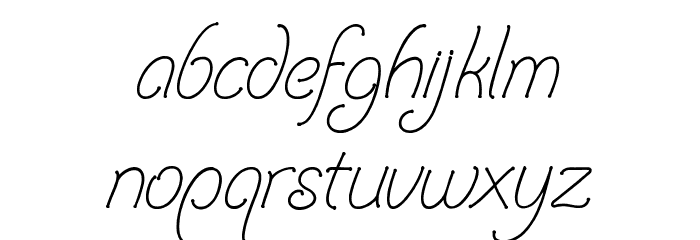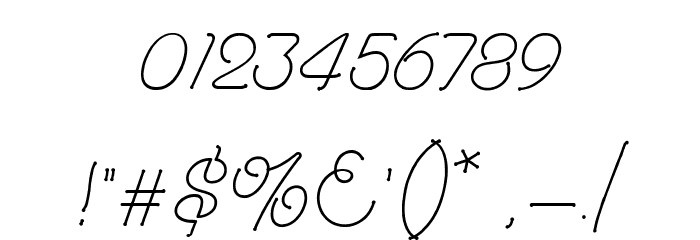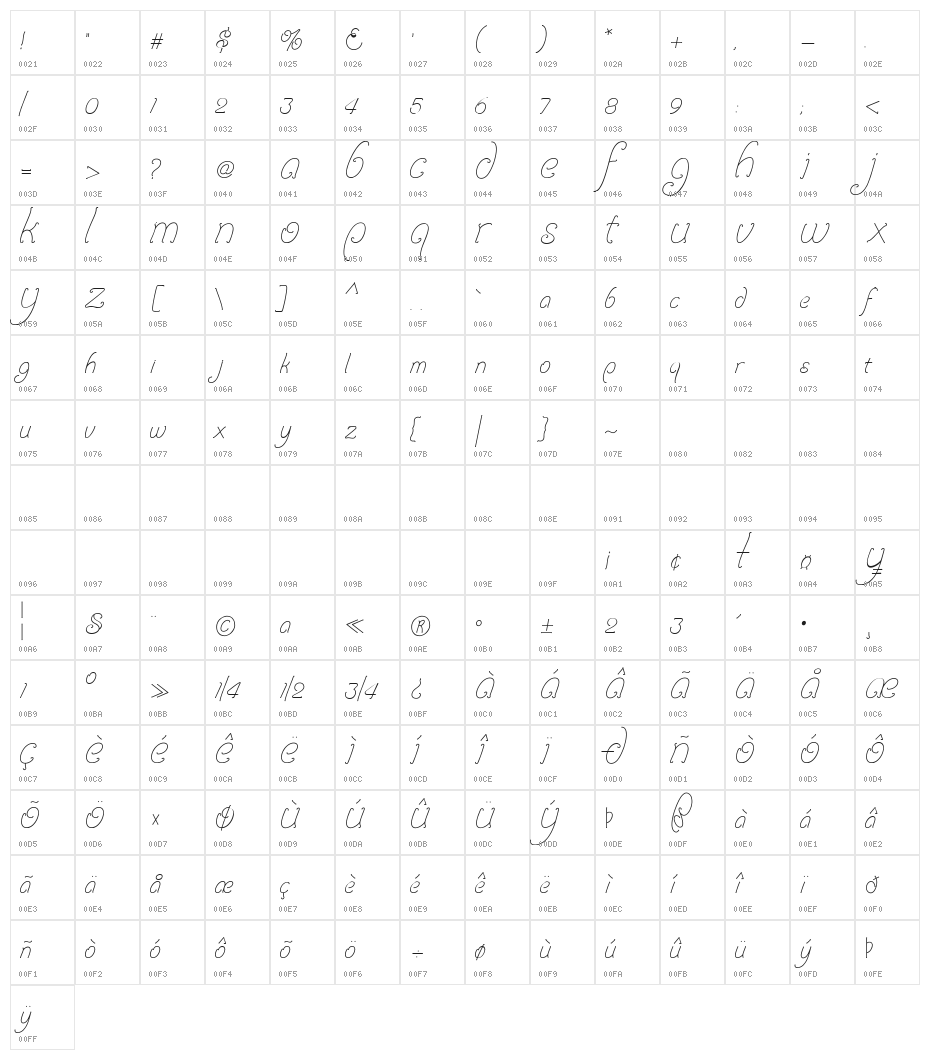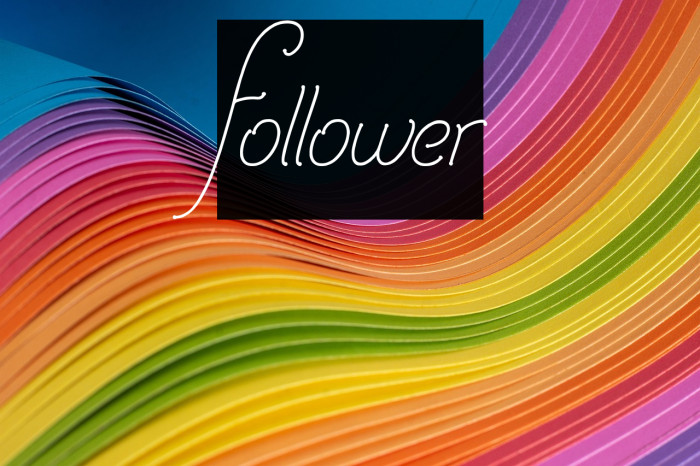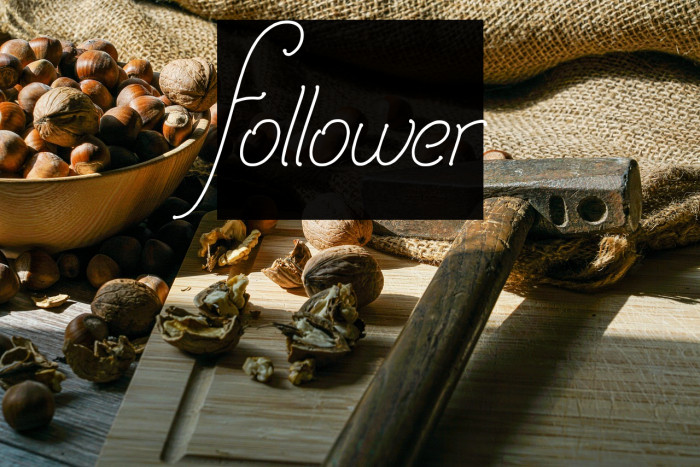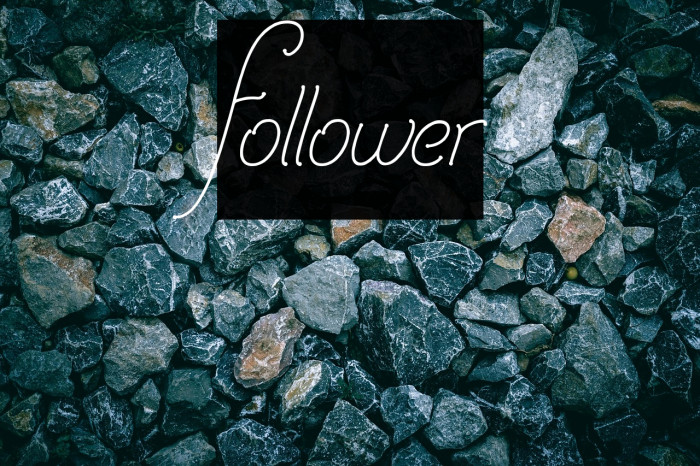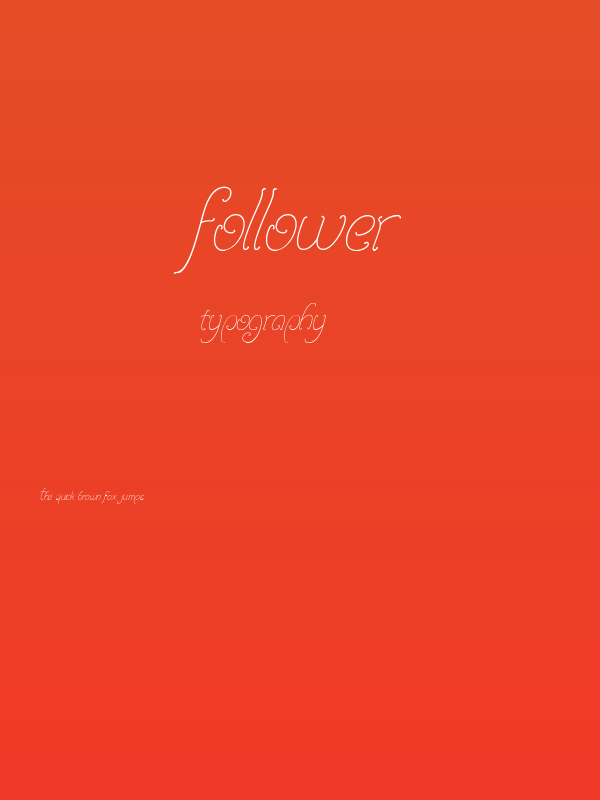
Follower Font
This font features a delicate and elegant script style with a flowing, cursive design. The characters are connected with smooth, continuous strokes that give it a graceful and sophisticated appearance. The uppercase letters maintain a consistent height, while the lowercase letters exhibit a slight slant, enhancing the fluidity of the text. The numerals are designed to match the overall aesthetic, with curved lines and a harmonious balance. Special characters are crafted with the same attention to detail, ensuring a cohesive look across all symbols. This font is perfect for projects that require a touch of elegance and refinement.
A delicate and elegant script font with flowing, cursive design.
- Font: Follower
- Proposed Projects: Ideal for wedding invitations, elegant branding, personal stationery, and decorative quotes.
- Category: Script
- Weight: Light
- Overall Style: Elegant
- Use Case: Logos, Invitations, Decorative text